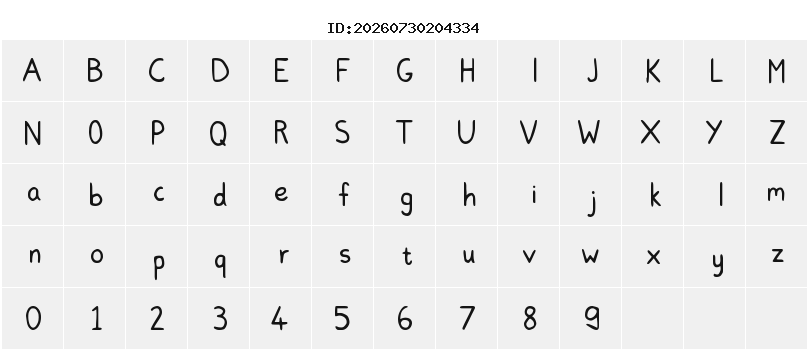
• Description: Lovinn is made by Aron Veraart
About Lovinn.ttf
Lovinn.ttf is a modern, elegant sans-serif font designed for ultimate readability and visual harmony. Perfect for branding, headlines, web design, and print materials.